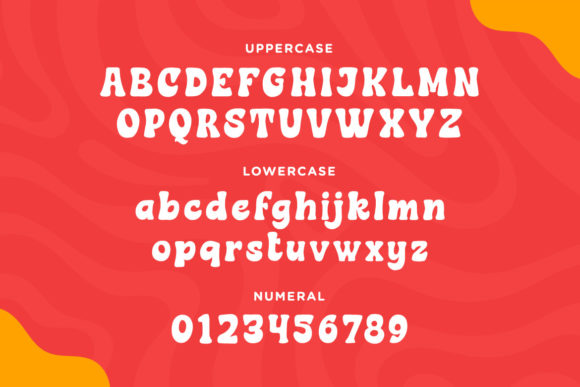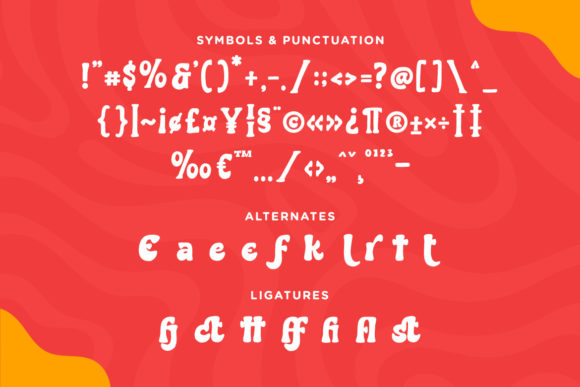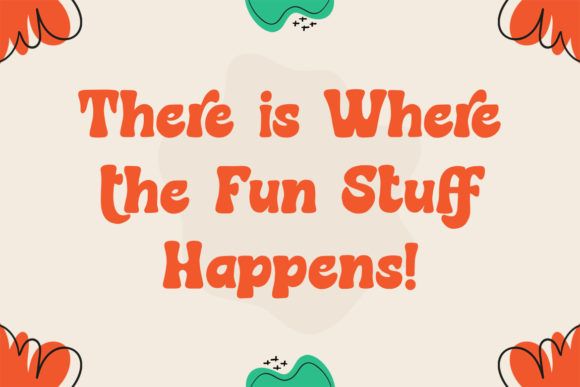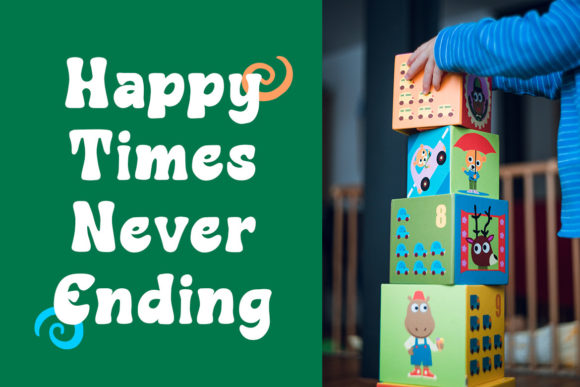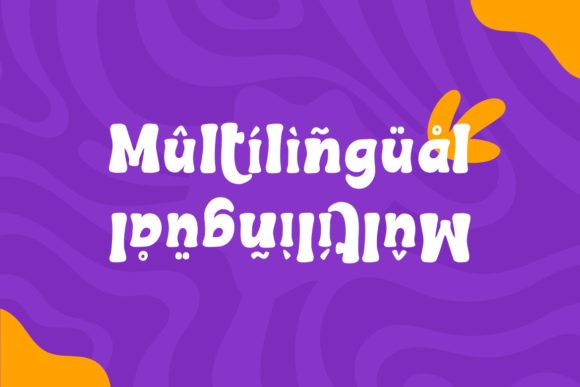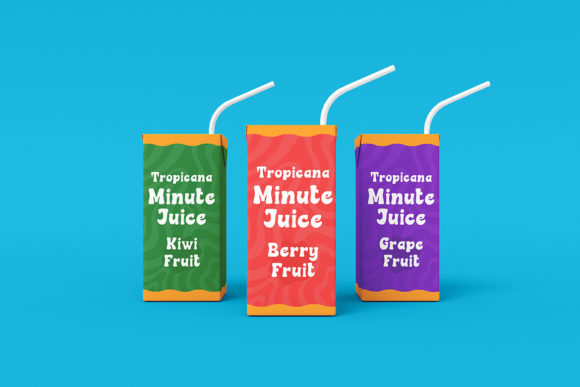
Introduction to Gummies Font Font
Fonts play a crucial role in design, and the Gummies Font font is a typeface that brings both character and versatility to any project. Whether you’re working on a branding project, a website, or a print design, the Gummies Font font offers a unique style that can elevate your work.
Gummies is a playful, cute, and bulky display font.
Whimsical and unique, this font will brighten up each of your designs Add it confidently to your projects, and you will love the results.
Key Features of Gummies Font Font
Why Choose Gummies Font Font?
The Gummies Font font is more than just a typeface – it’s a design tool that helps you communicate your message with style and clarity. Its unique character set and versatile design make it suitable for a wide range of applications, from elegant invitations to bold headlines.
With its carefully crafted letterforms and balanced proportions, the Gummies Font font ensures readability and visual appeal across all mediums.
What makes Gummies Font font special?
The Gummies Font font stands out with its unique design, exceptional readability, and versatility across various design applications.